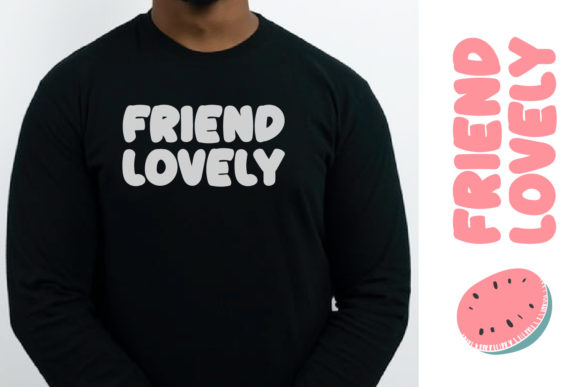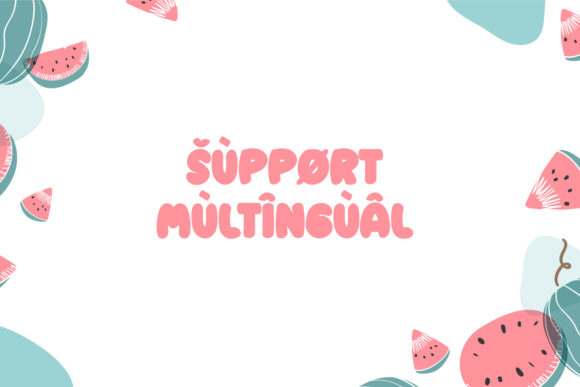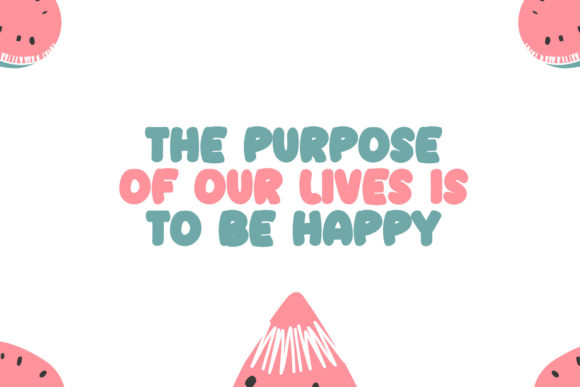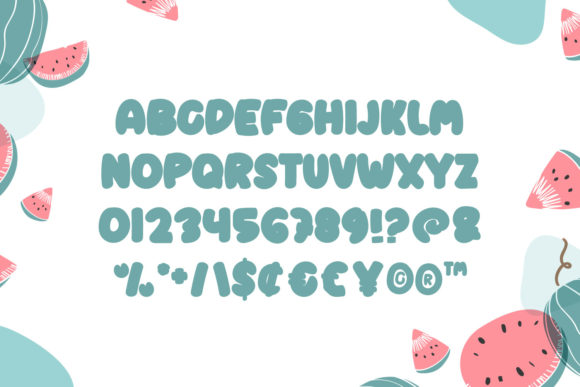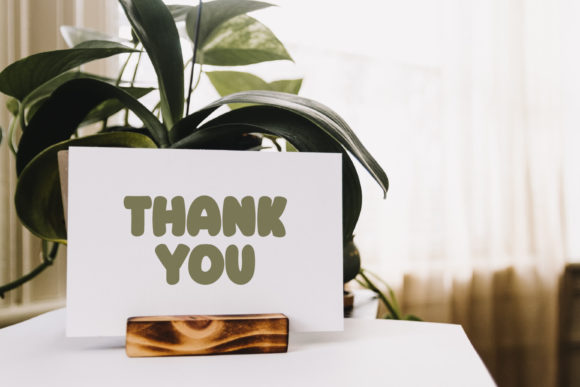
Bring Your Designs to Life with Creamy Font
Have you ever been stuck in a creative rut, staring at a blank canvas or screen, searching for that perfect font to give your design the extra oomph it needs? You’re not alone! We’ve all been there, and it’s moments like these that we wish we had a magic wand to make our designs come alive.
That’s where Creamy Font comes in – a cool and playful display font that adds a touch of whimsy to any design. This chunky lettered font is perfect for creating eye-catching headlines, adding a pop of personality to your branding, or simply making your designs stand out from the crowd. With Creamy Font, you can breathe new life into your designs and take them to the next level.
Creamy Font Key Features
- Font Family: Creamy Font is a high-quality sans-serif font family designed for body text and headings.
- Font Sizes: Offers a range of font sizes, from 8pt to 72pt, making it suitable for various design projects, from small text to large headings.
- Unique Characteristics: Creamy Font features a unique blend of modern and classic design elements, with a subtle rounded edge and open apertures that create a friendly and approachable feel.
- Language Support: Supports a wide range of languages, including Latin, Cyrillic, and Greek scripts, making it a versatile choice for global design projects.
Creamy Font Review
Overall, I’d say that Creamy Font has some great qualities, but it also has some areas where it falls short. Let’s start with the positives.
- ✨ Unique Character: The Creamy Font has a distinct and interesting character that’s perfect for adding a touch of whimsy to your designs.
- ✨ Versatility: This font is suitable for a wide range of applications, from body text to headings, and even logos.
- ✨ Legibility: Despite its unique style, Creamy Font remains legible even at smaller font sizes.
- ⚠️ Limited Font Sizes: While Creamy Font is legible, it starts to lose its charm and becomes harder to read at font sizes below 12pt.
- ⚠️ Overuse: Due to its unique style, Creamy Font can quickly become overused and tired-looking if not used judiciously.
- ⚠️ Compatibility Issues: I’ve noticed some compatibility issues with certain software and operating systems, which can be frustrating.
Overall, I’d give Creamy Font 3.5 out of 5 stars. While it has some great qualities, its limitations hold it back from being a top-tier font. With some careful usage and consideration, however, it can still be a valuable addition to your design toolkit.
Tips for Getting the Most Out of Creamy Font
For optimal results, pair Creamy Font with complementary colors and simple backgrounds. Experiment with different font sizes and styles to create visual interest.
Creamy Font is ideal for creative projects, such as wedding invitations, baby shower invitations, and menus. It’s also great for branding and marketing materials, like logos and business cards.
Q: What is the recommended font size and line spacing for optimal readability with Creamy Font?
For optimal readability, we recommend using a font size between 10pt and 14pt, with a line spacing of 120-150% of the font size. This will provide a clear and legible reading experience, especially in body text and headings.